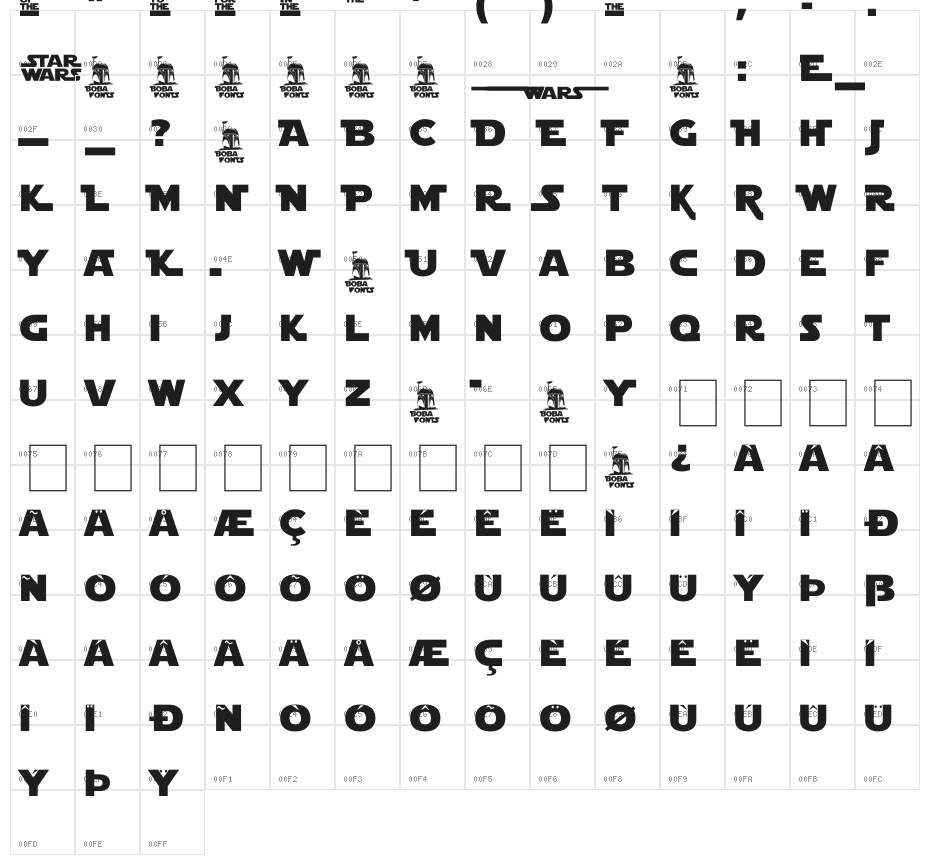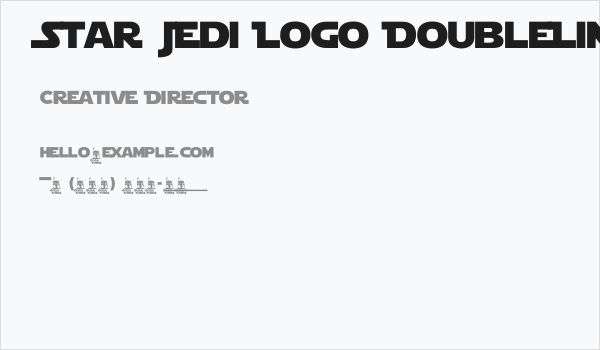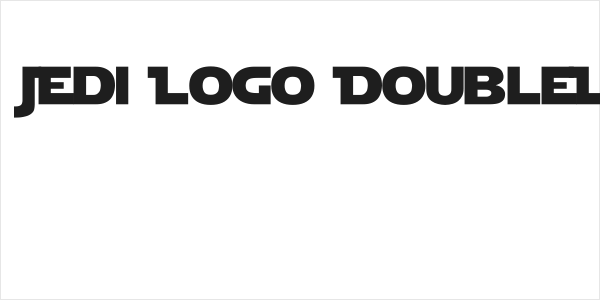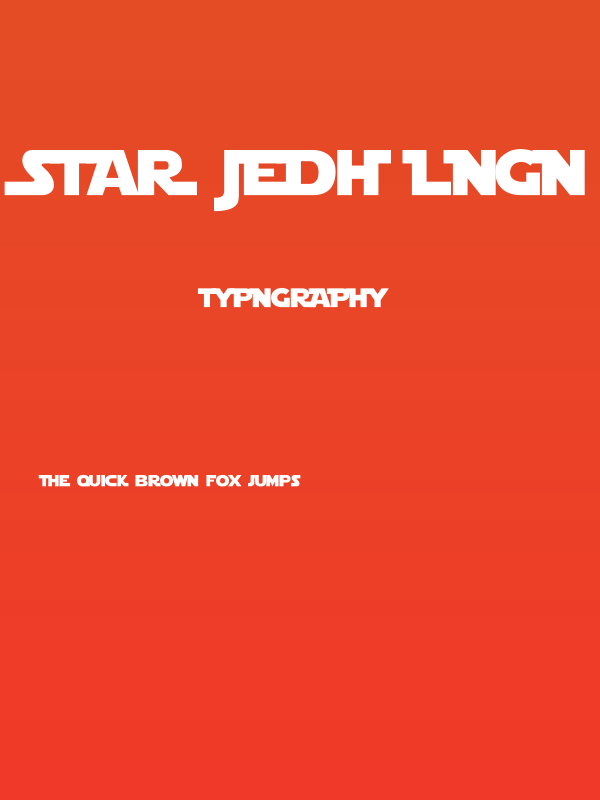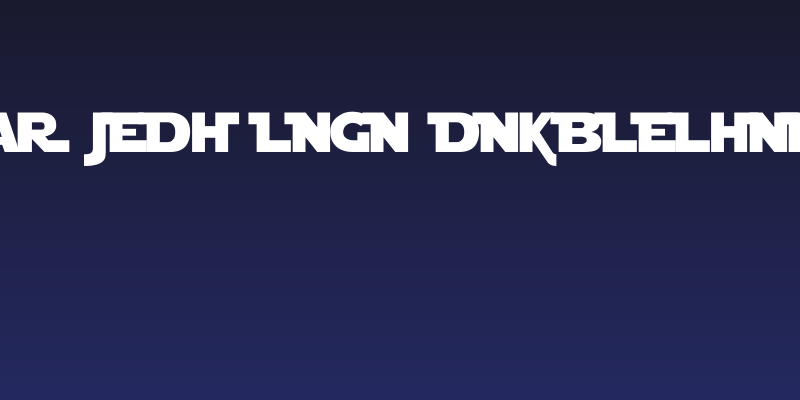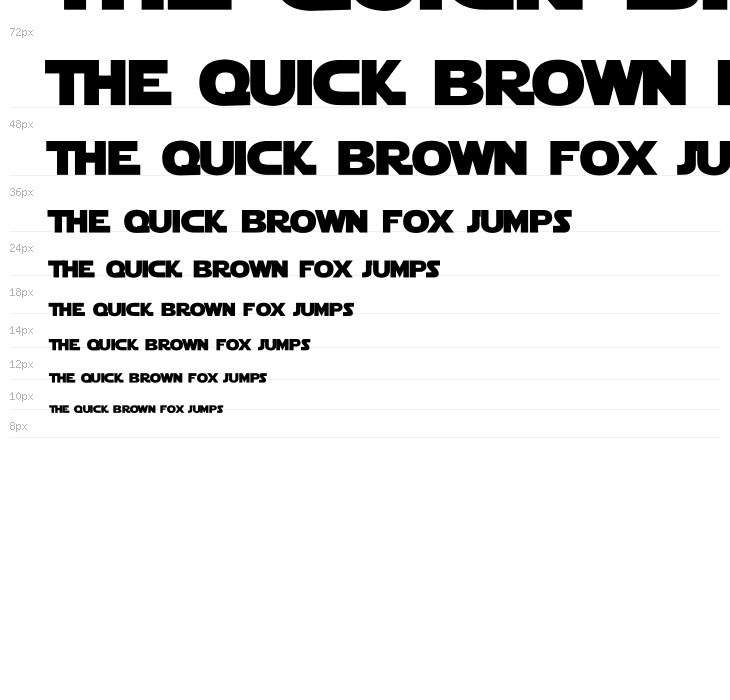
Star Jedi Logo DoubleLine2 Font
Star Jedi Logo DoubleLine2 Description
This font features a bold, geometric design with a futuristic and sci-fi aesthetic. The characters are constructed with sharp angles and straight lines, creating a sense of movement and energy. The uppercase letters are particularly striking, with a strong presence that commands attention. The font includes unique symbols and shapes that add to its distinctive style, making it ideal for creative and themed projects. The design is reminiscent of iconic sci-fi motifs, making it perfect for fans of the genre.
| Overall Style | Futuristic, Sci-Fi |
| Proposed Projects | Ideal for sci-fi themed posters, movie titles, video game graphics, and fan art projects. |